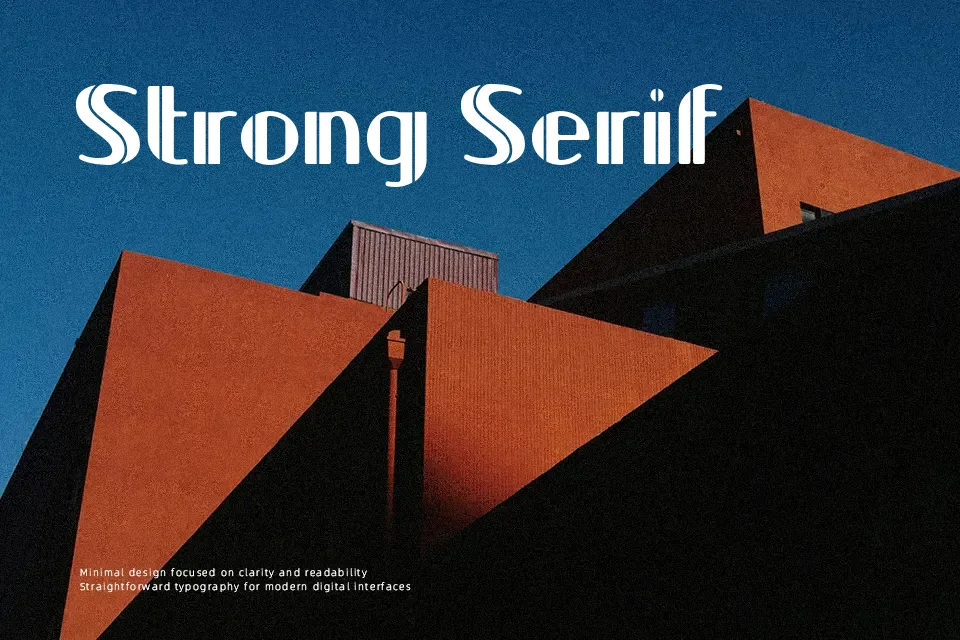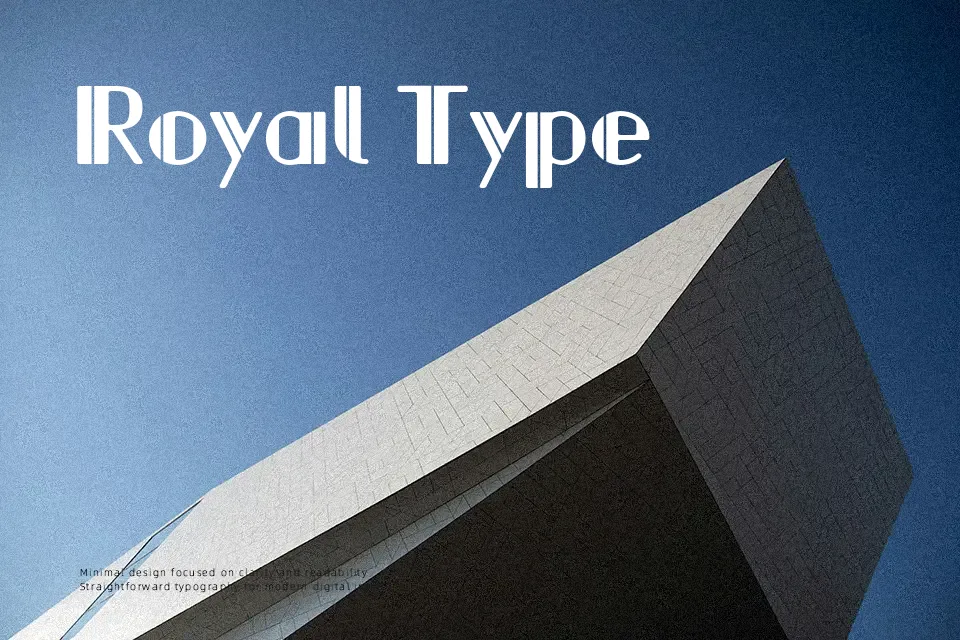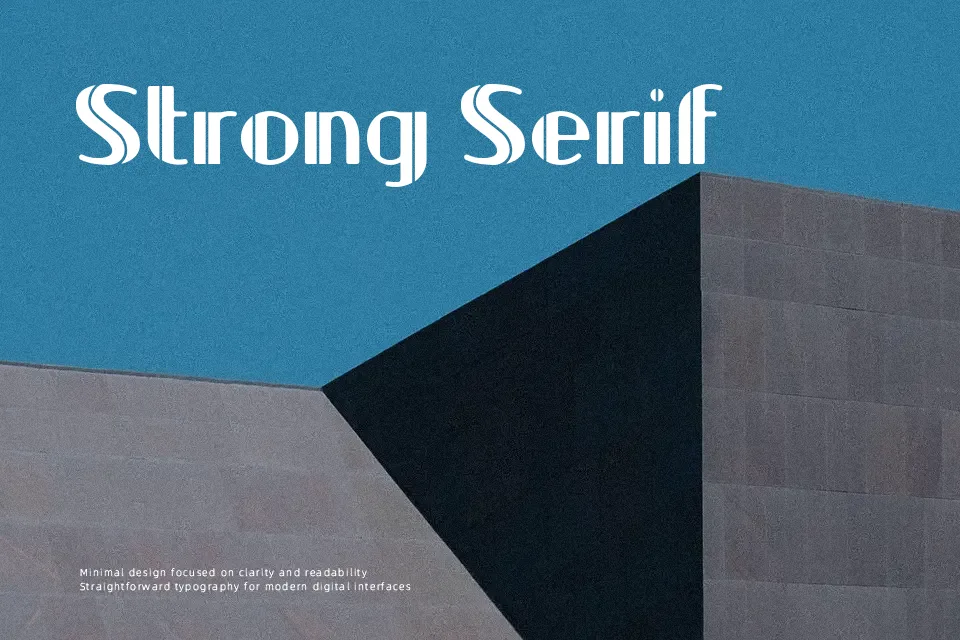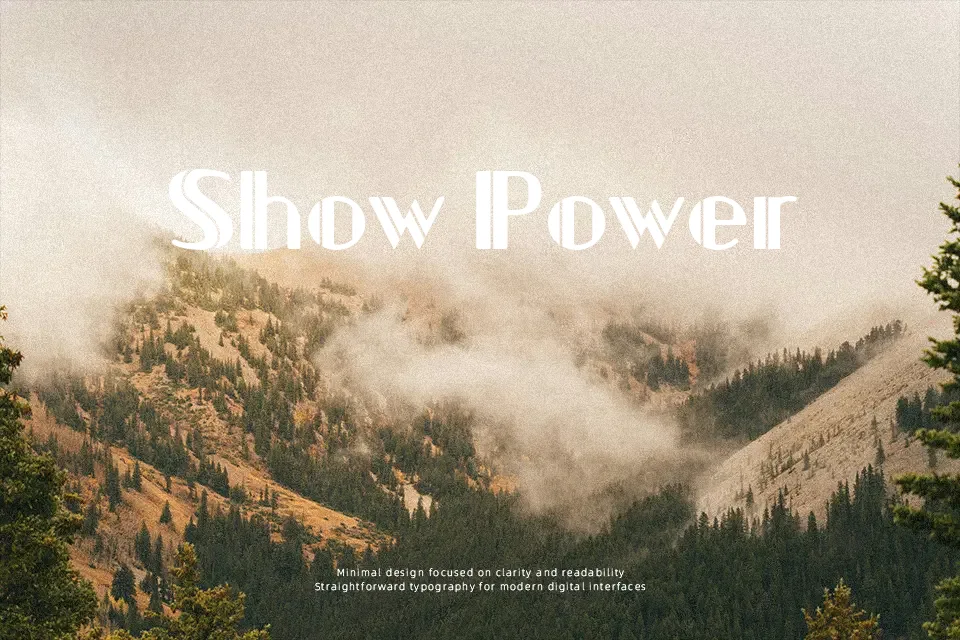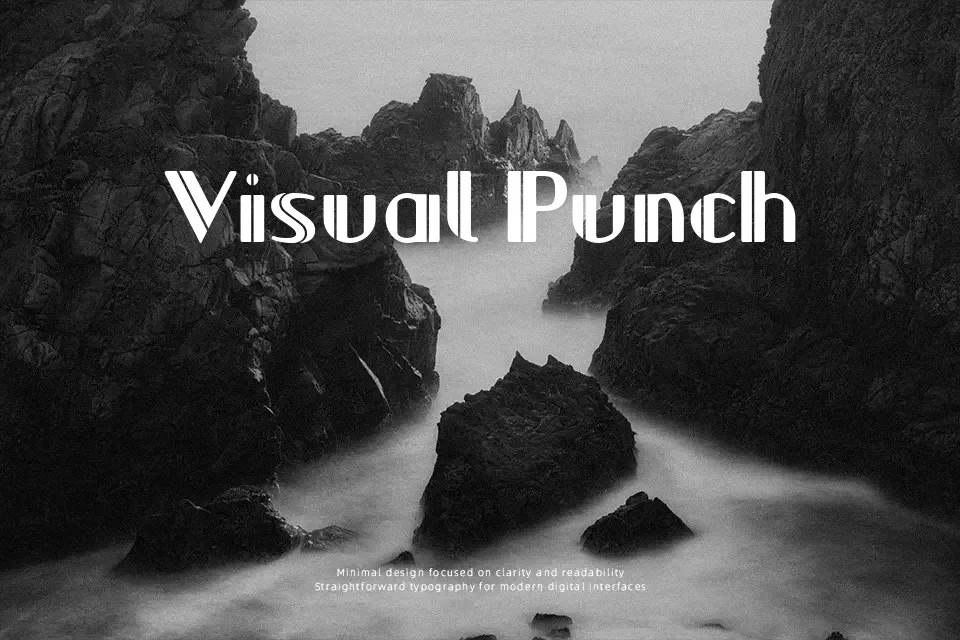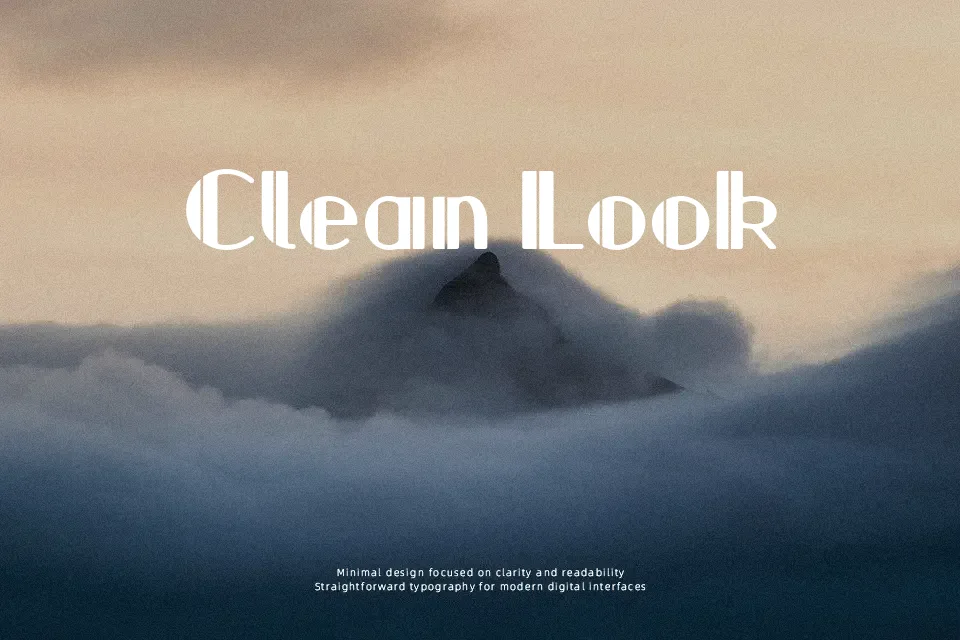
Rudolf Font
Rudolf Font commands attention in any large typographic setting with its pronounced thick-and-thin stroke contrast and classic Art Deco architecture. The letterforms showcase rigid geometric shapes paired with dramatic curves to create a highly stylized, decorative rhythm. The interior detailing and structured spacing help maintain clarity in larger headlines, giving the design a sophisticated presence. This typeface performs exceptionally well in retro-themed poster headlines and luxury cosmetic packaging where visual impact is paramount. However, the intricate decorative elements and extreme stroke variations become less effective at smaller sizes. Dense forms reduce comfort during extended reading, making it unsuitable for body text or tight editorial layouts where sustained legibility is strictly required.
vintage theatrical posters, luxury product packaging, retro event branding, large display headlines
long paragraph text, small interface labels, dense editorial layouts
Perfect for branding, headline, and packaging, with a classic and decorative style.